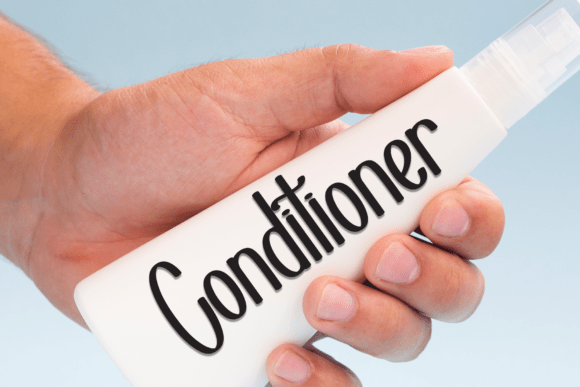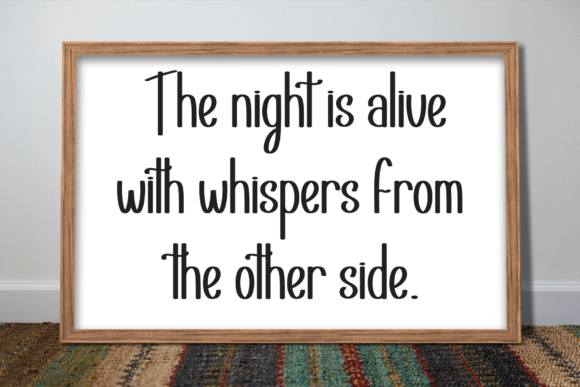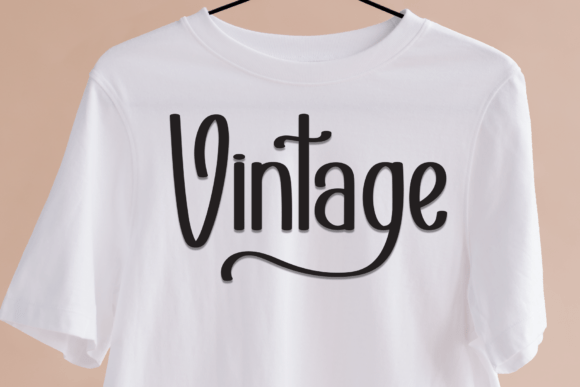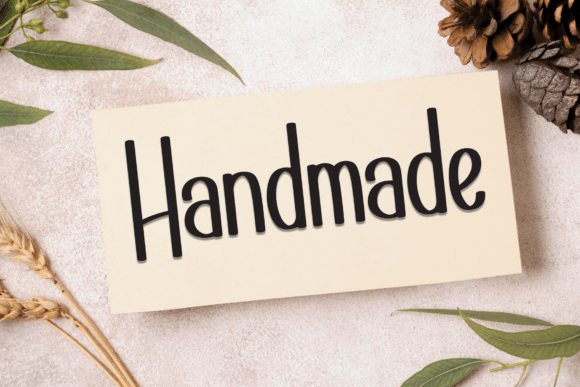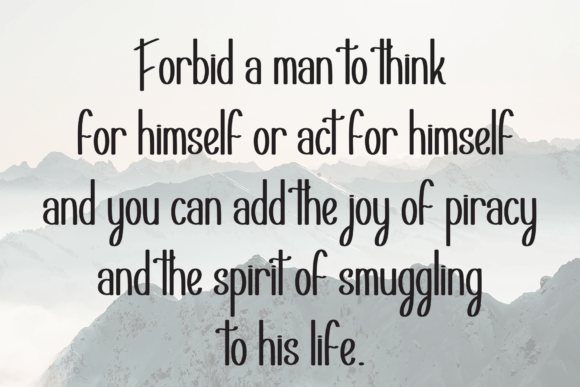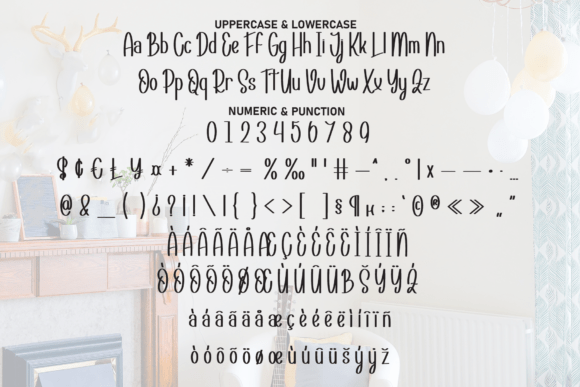
The Ultimate Birthday Party Font for Designers
Who hasn’t felt the excitement of brainstorming creative ideas for a birthday party? The sound of confetti popping, the smell of freshly baked cupcakes, and the joy of seeing a child’s face light up with excitement – it’s moments like these that make us want to create something truly special. As designers, we know that the right font can make all the difference in capturing the essence of a celebration.
Enter the Birthday Party Font, a playful and spirited handwritten font that’s bursting with fun energy and swirly flair. With its whimsical curves and festive swashes, this font is the perfect choice for designers looking to add a touch of magic to their projects. Whether it’s a birthday invitation, party banner, or greeting card, the Birthday Party Font brings joy and creativity to every design.
Birthday Party Font Key Features
- Font Family: Birthday Party Font is a unique, hand-drawn font designed specifically for birthday celebrations.
- Character Count: The font contains 230+ characters, including uppercase and lowercase letters, numbers, and special characters.
- Unique Characteristics: Features playful, cursive lines and whimsical flourishes, perfect for adding a celebratory touch to birthday invitations, party decorations, and other festive materials.
Birthday Party Font Review
Overall, I think the Birthday Party Font has a lot of potential, but it also has some limitations that might make it less suitable for certain projects. Here’s my honest review.
- The font is playful and fun, making it perfect for birthday party invitations, decorations, and other related materials.
- The font is highly customizable, allowing users to adjust the size, color, and style to fit their needs.
- The font is relatively easy to read, even at smaller sizes, which is a plus for digital applications.
- The font is not suitable for formal or professional applications, as it’s too playful and casual.
- The font might be difficult to use in complex layouts, as the playful nature of the font can make it harder to read in certain contexts.
- The font is not available in as many languages as some other fonts, which might limit its usability for international projects.
I think the Birthday Party Font is a great choice for projects that require a fun and playful touch. However, it’s not a good fit for more formal or complex projects. With some careful planning and consideration of its limitations, this font can be a great addition to any designer’s toolkit.
For the best results, use the Birthday Party Font in conjunction with bright, bold colors and playful graphics.
Experiment with different font sizes and styles to create a unique and eye-catching design.
The Birthday Party Font is perfect for:
Invitations, party decorations, and other celebration materials.
Children’s birthday party planning and design.
Creating a festive and playful atmosphere for any occasion.